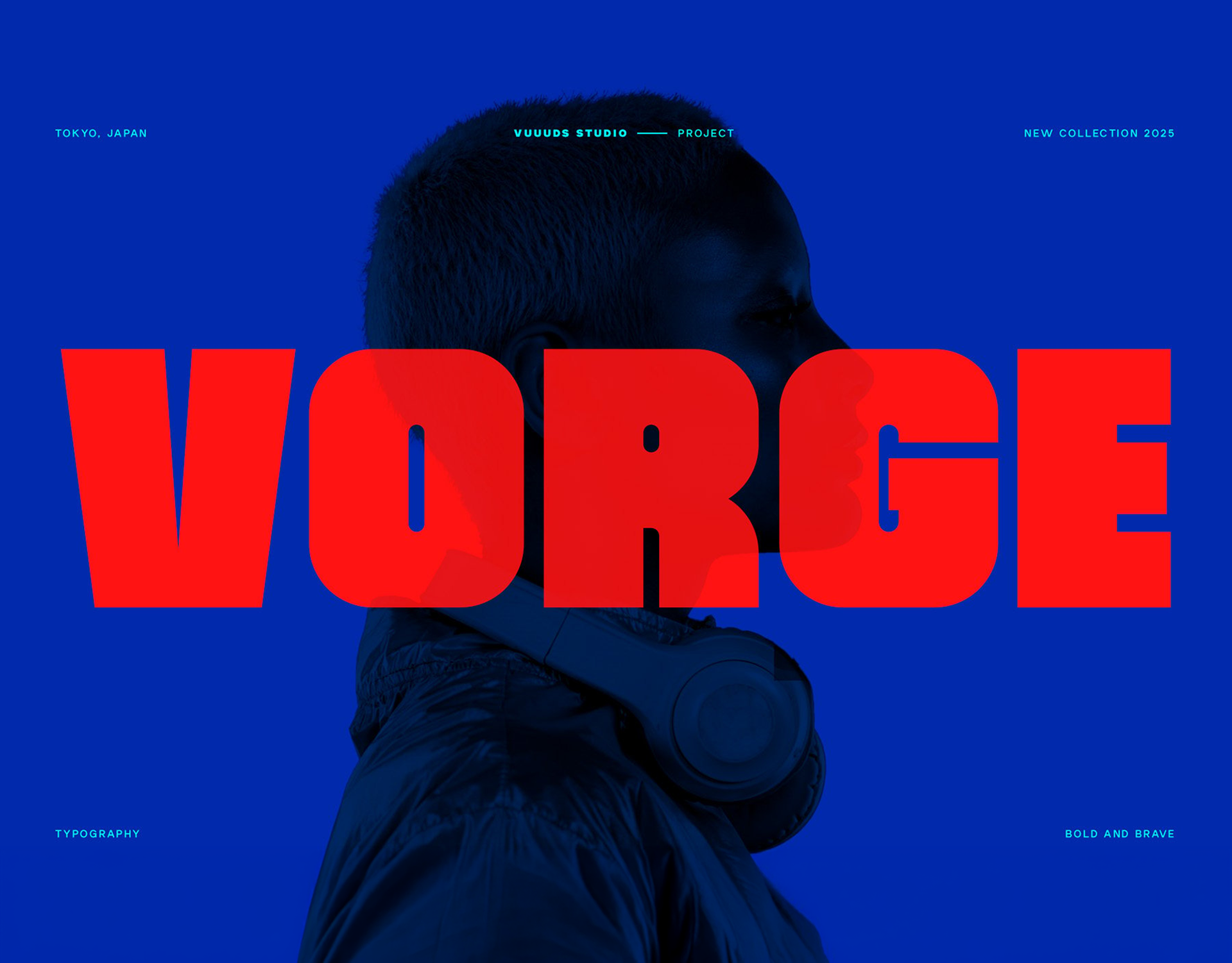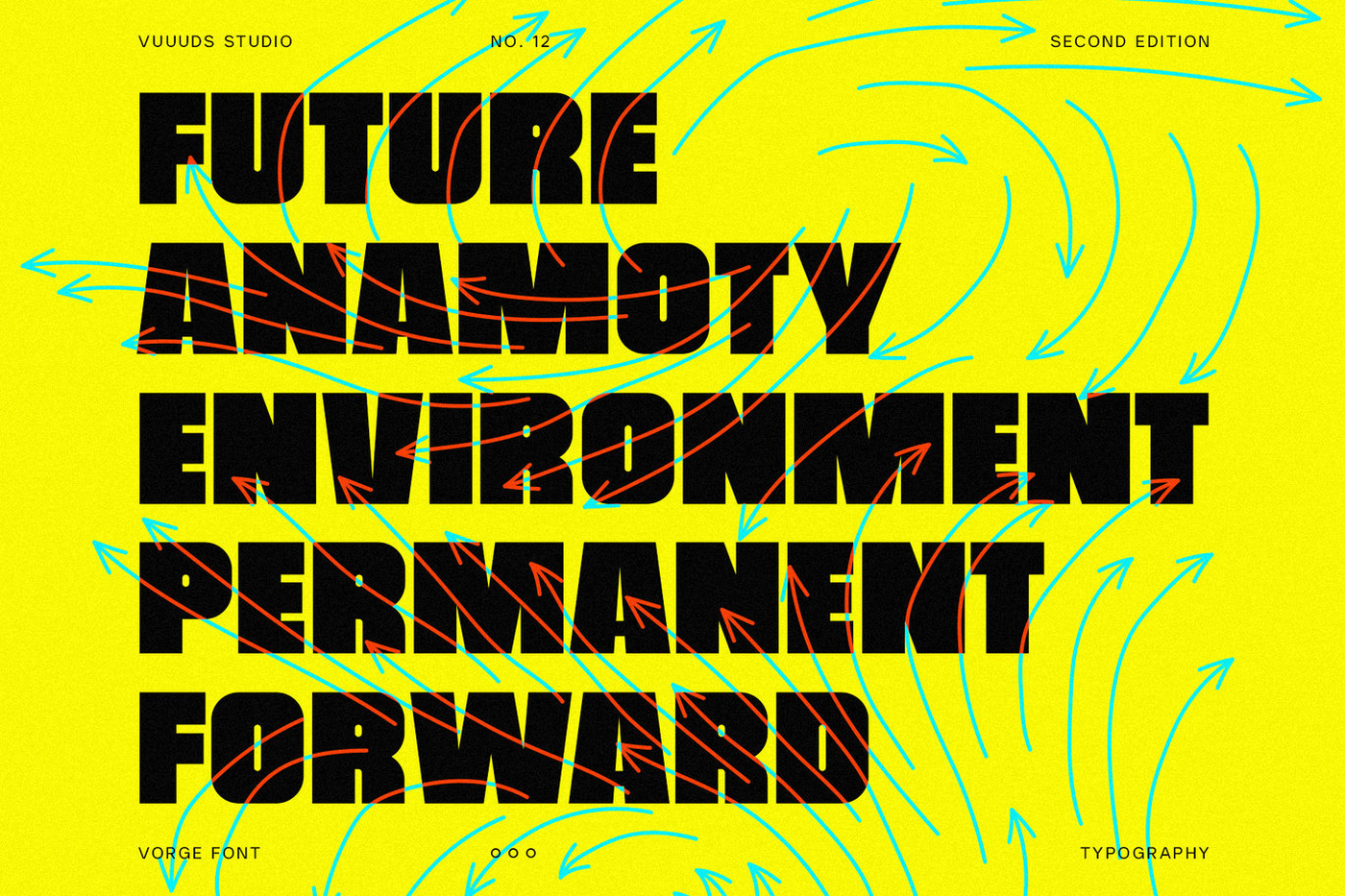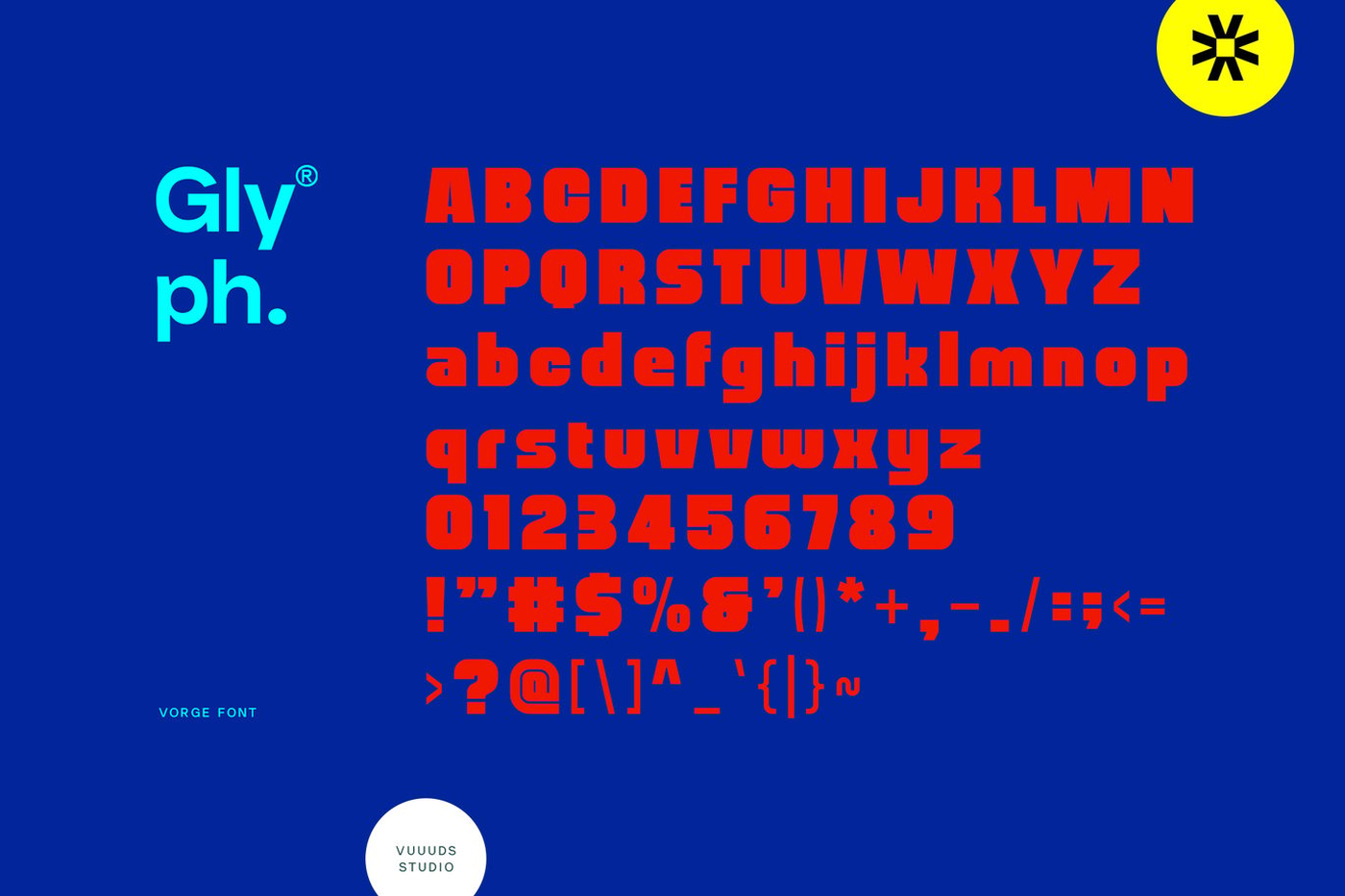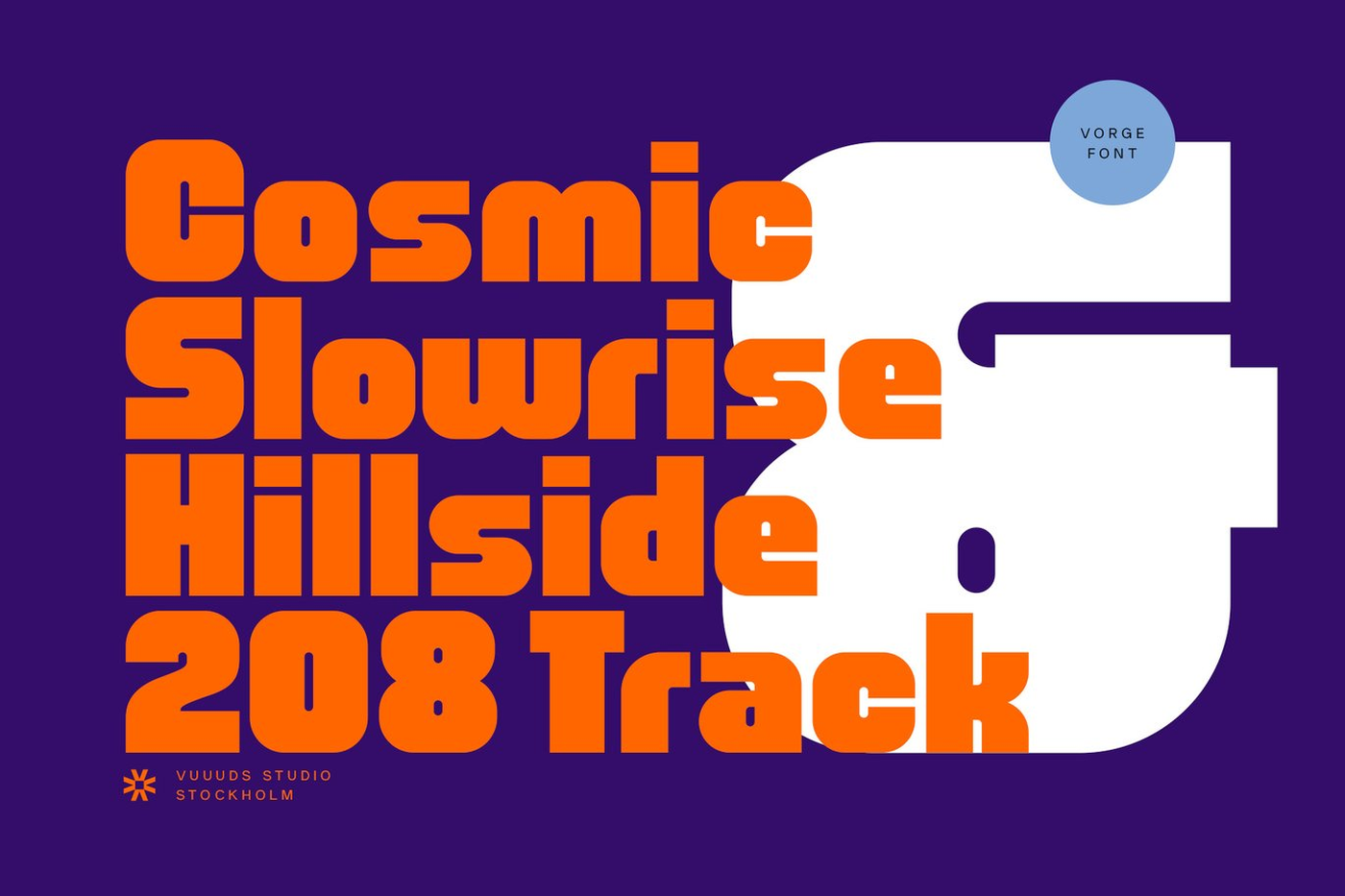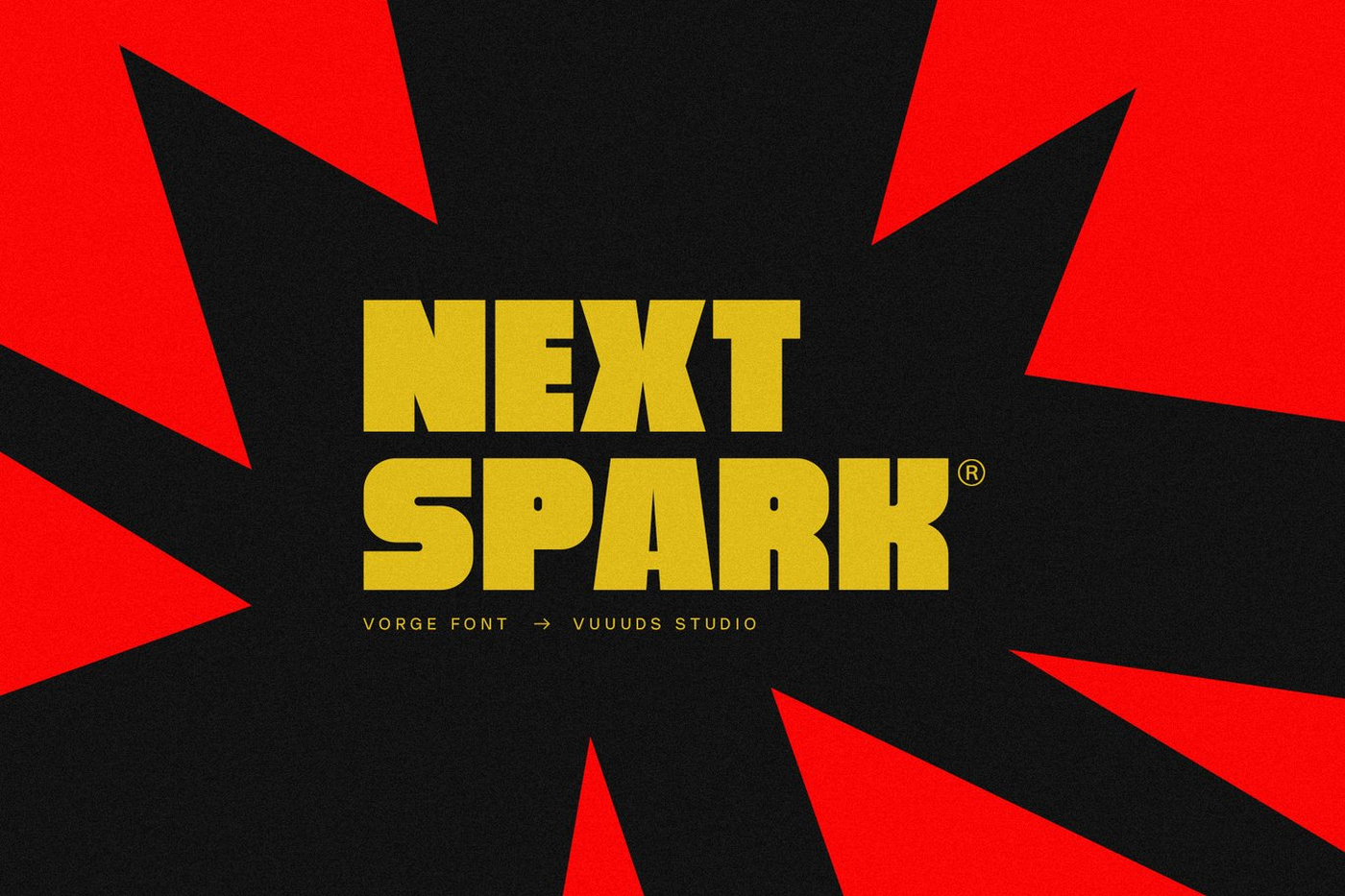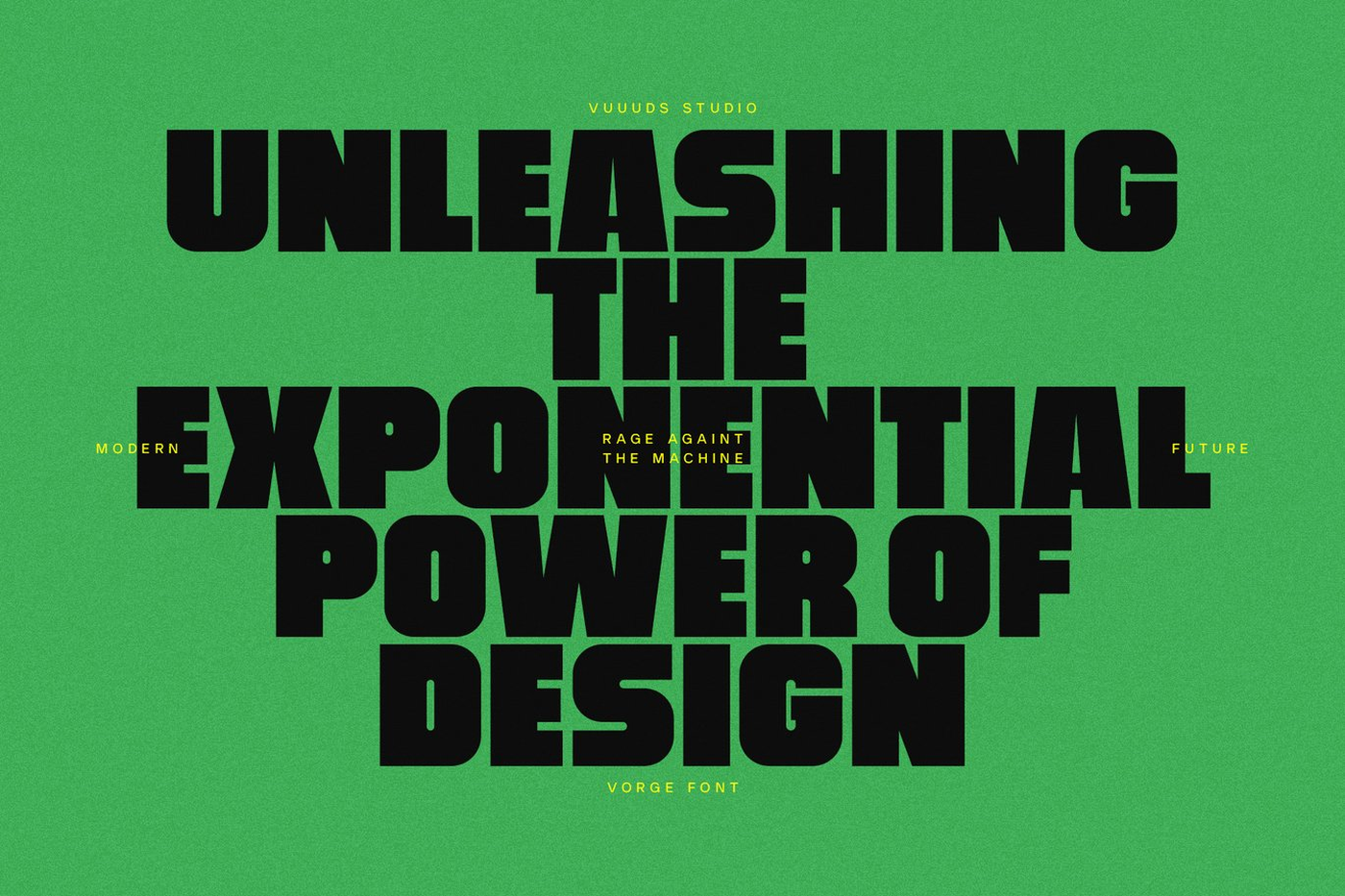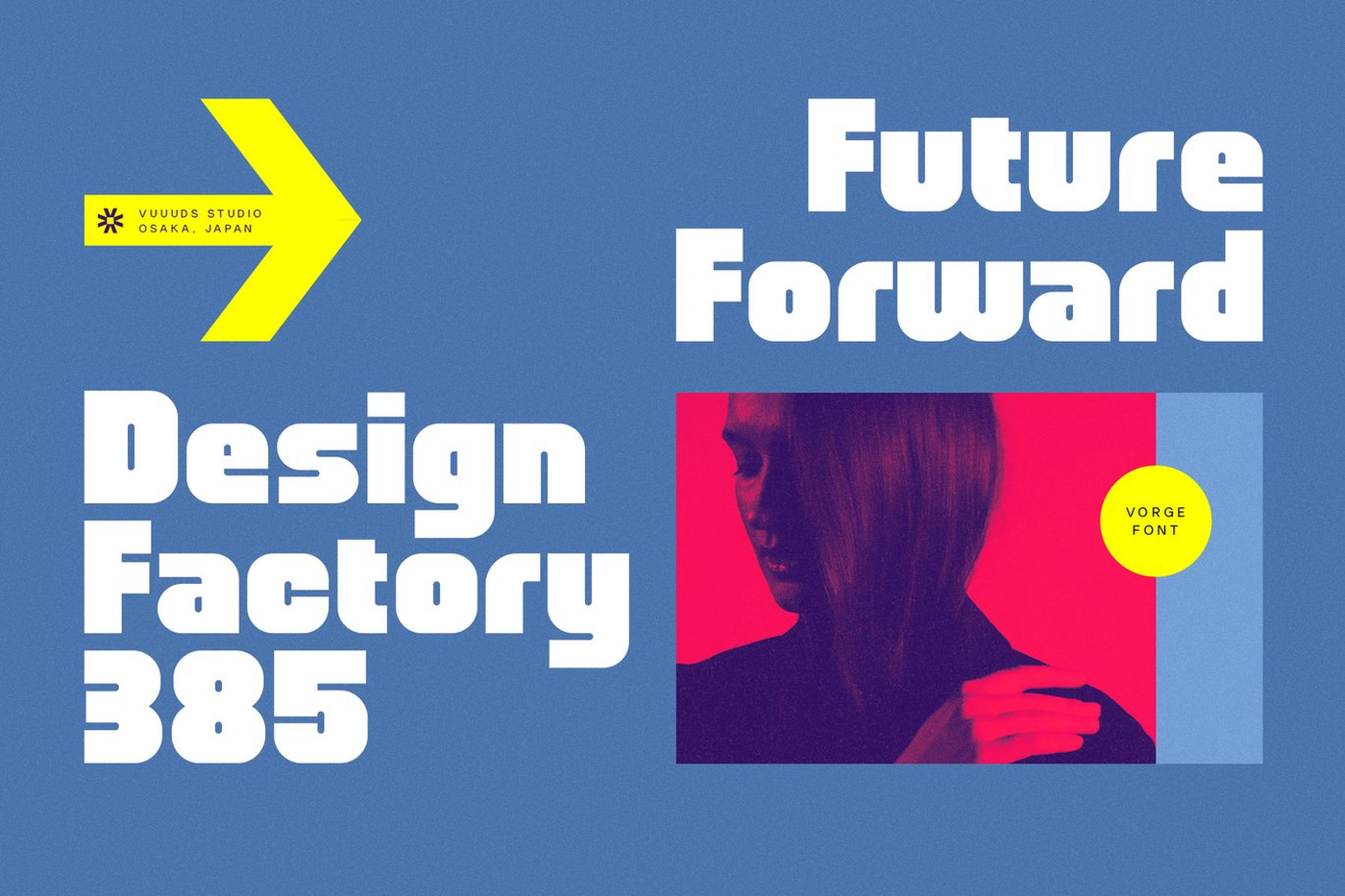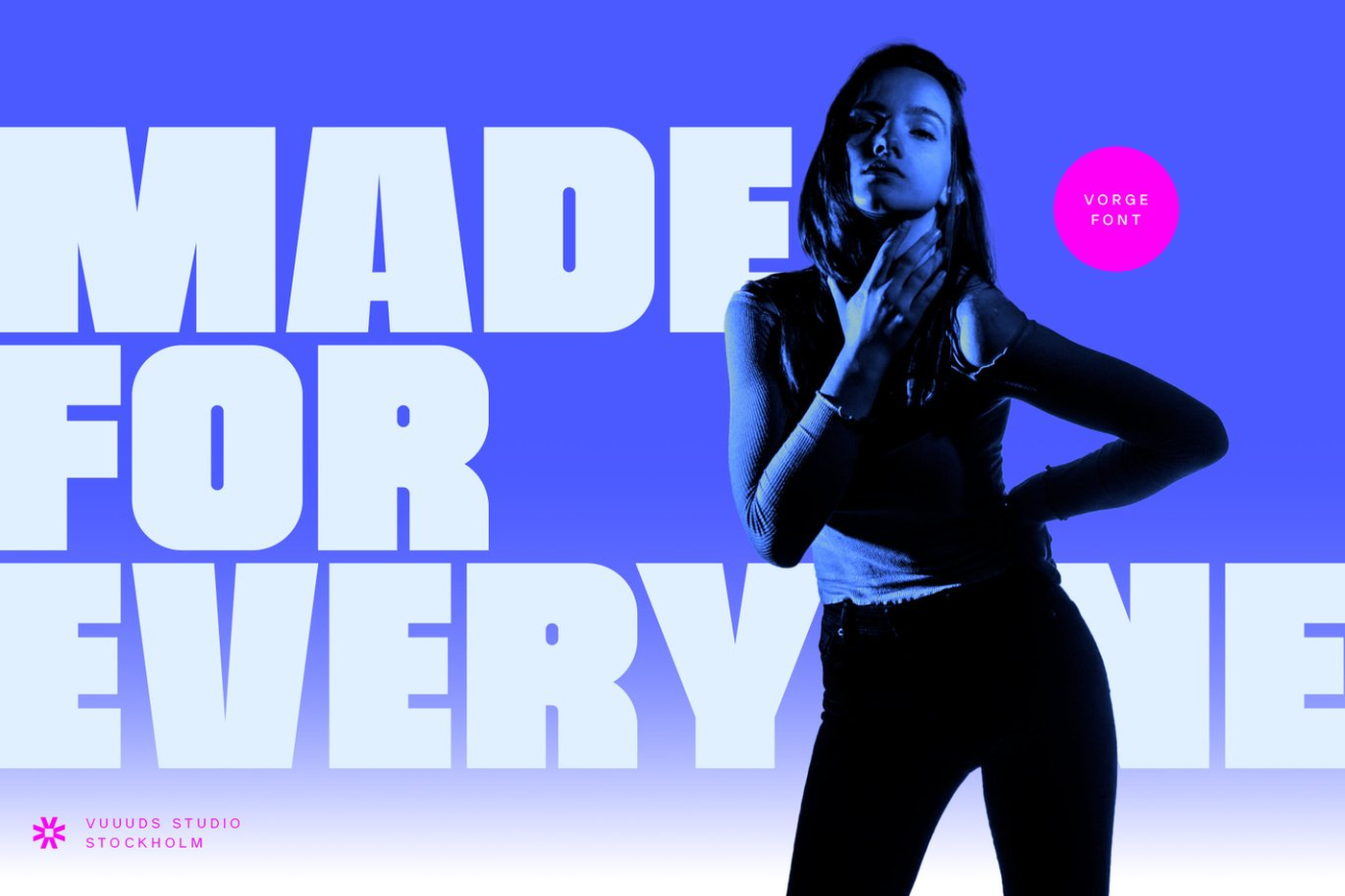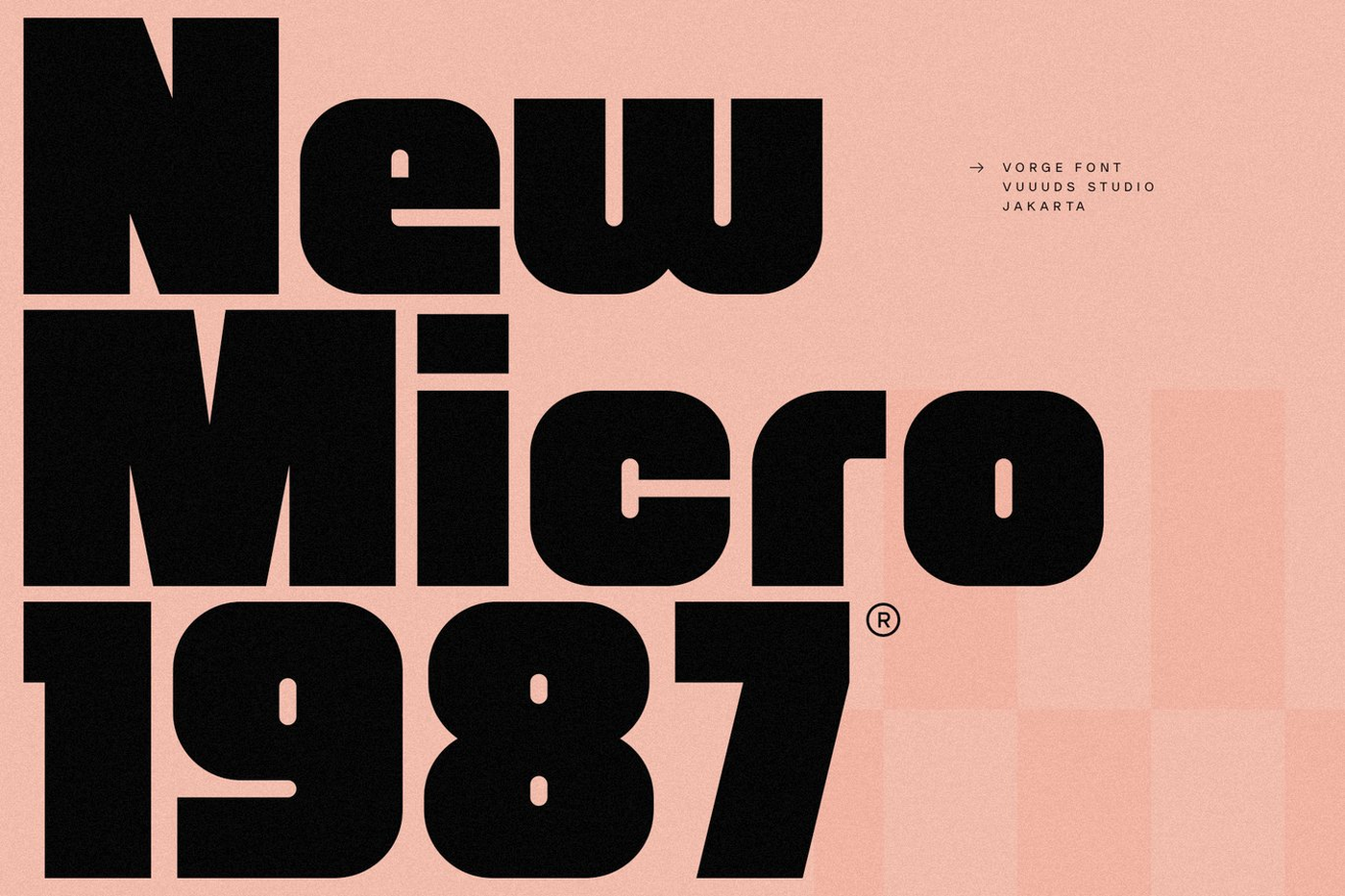
Vorge - Modern Bold Display Font
Vorge is modern bold condensed font, every single letters have been uniquely crafted. This font including beautiful alternate glyph. You can access the alternate glyph via Font Book (Mac user) or Windows Character Map (Windows user), I've been put the link tutorial inside the zip file.
Designer: vuuuds
Font: Vorge